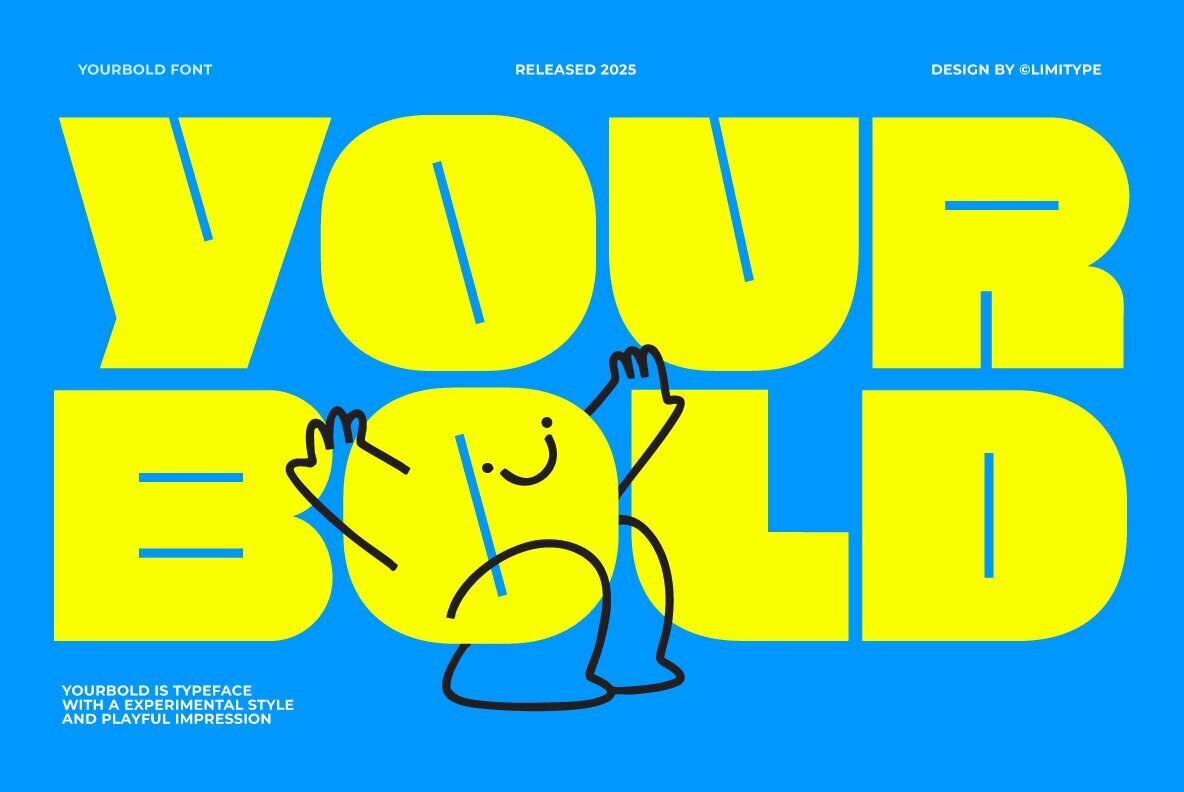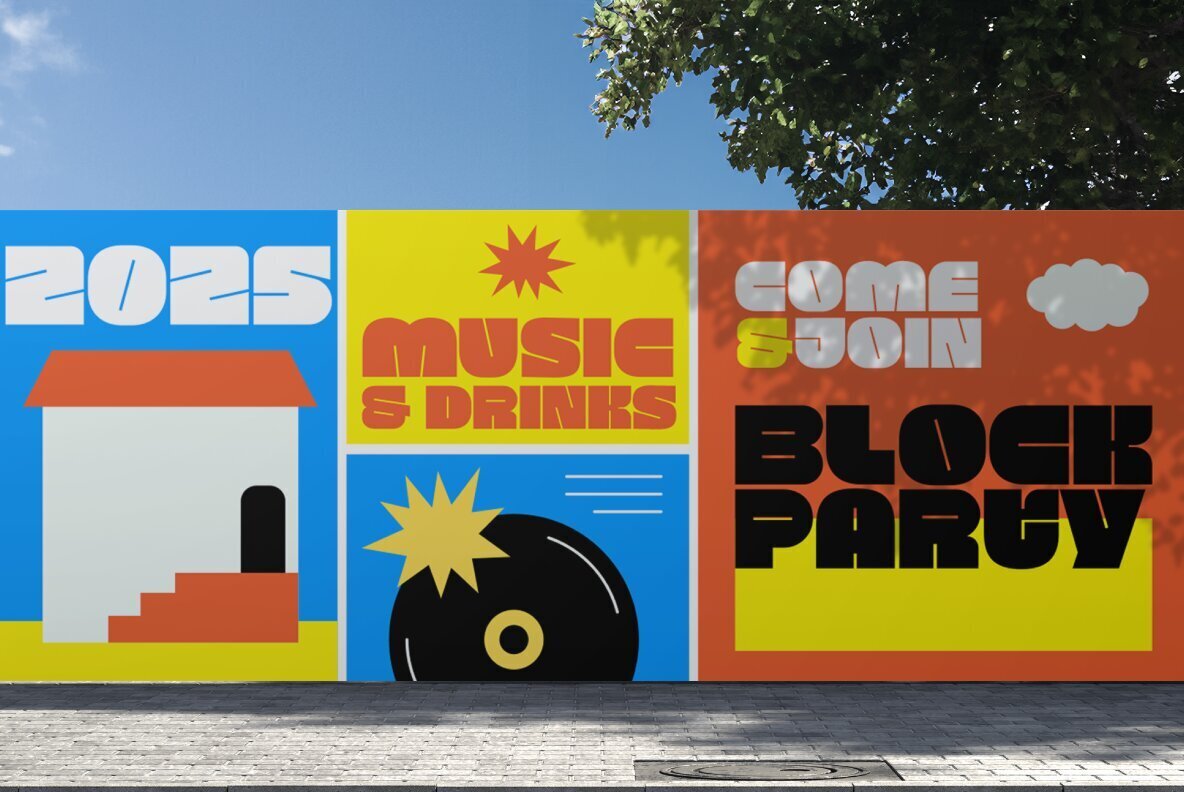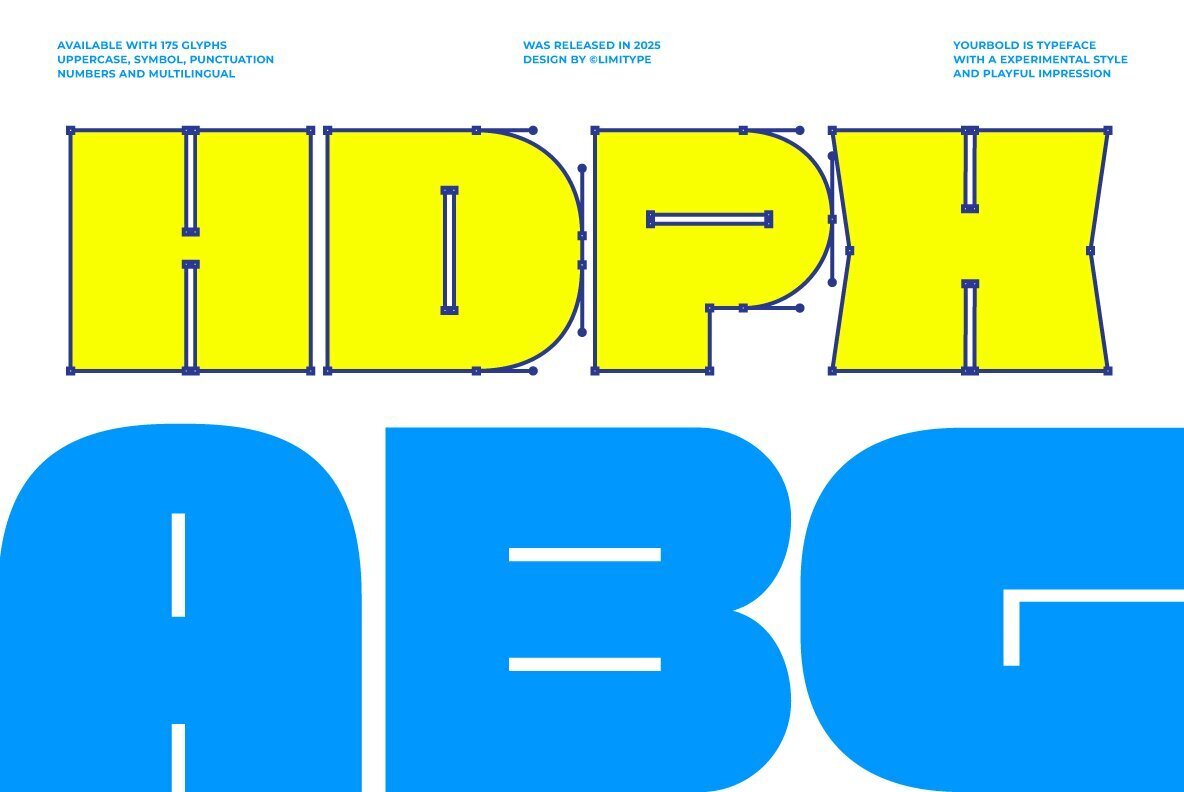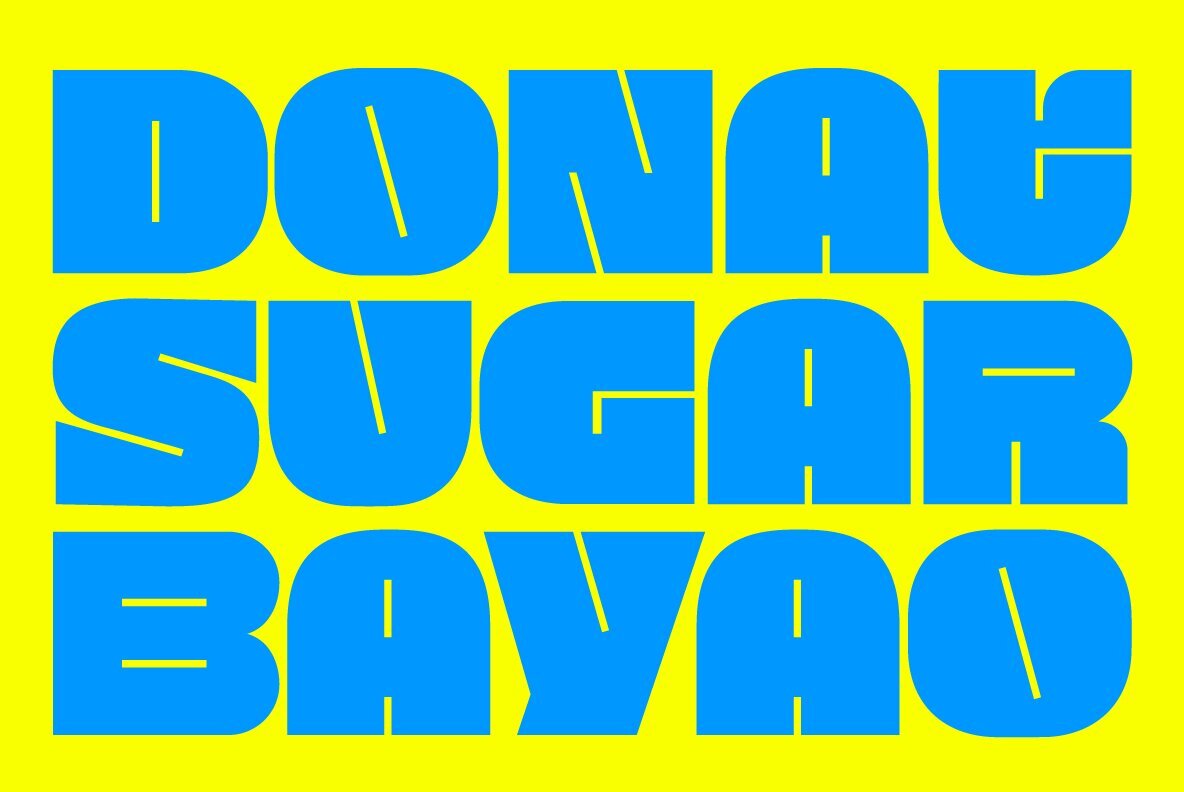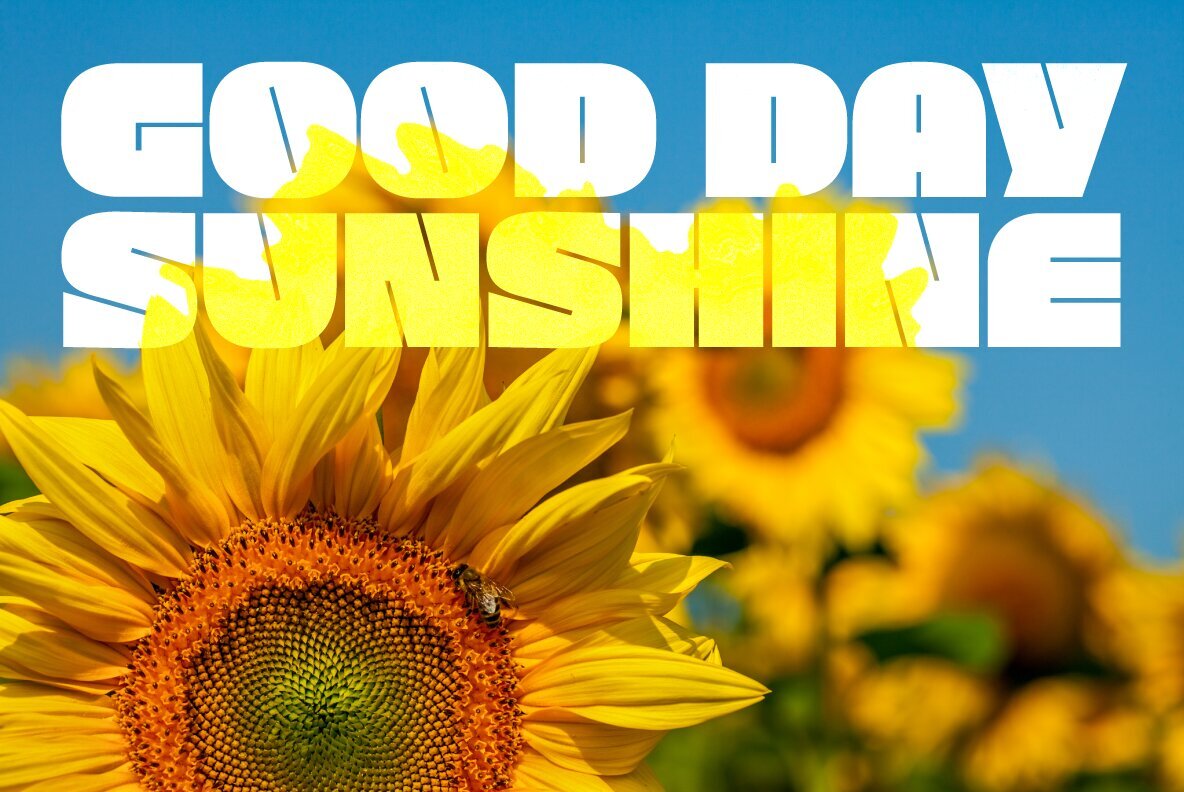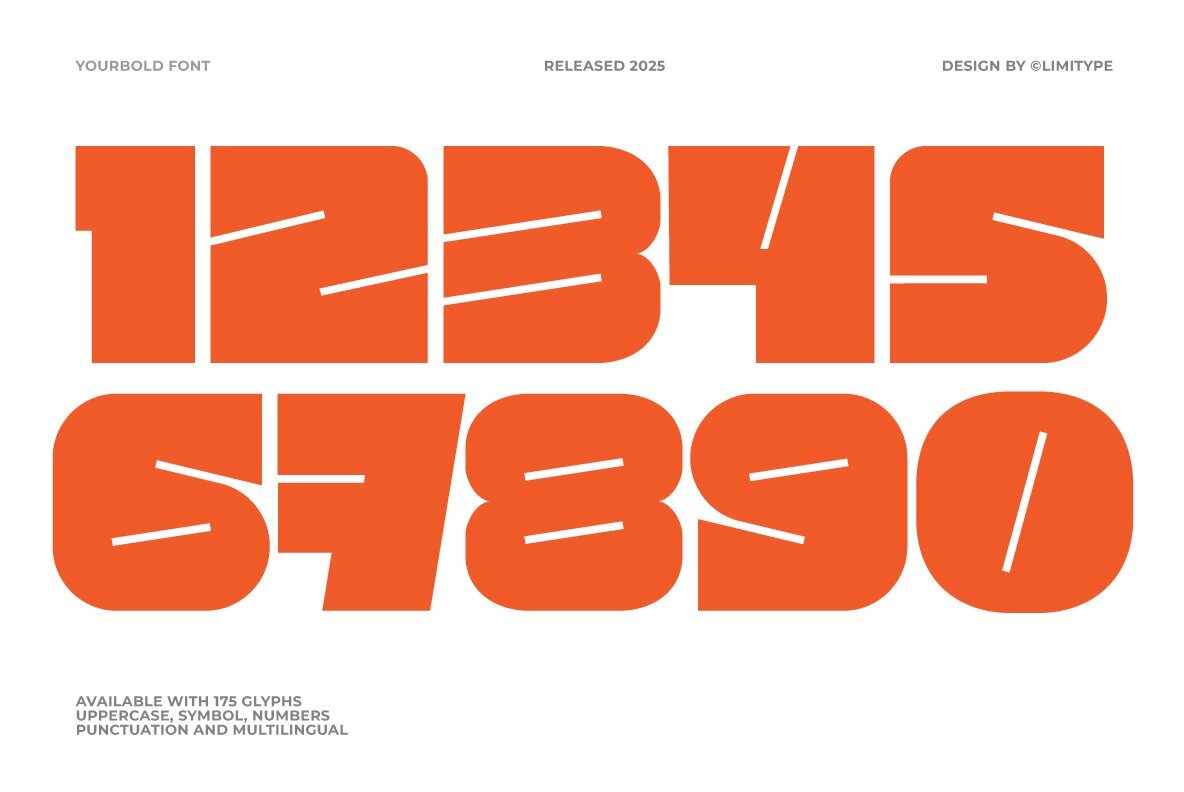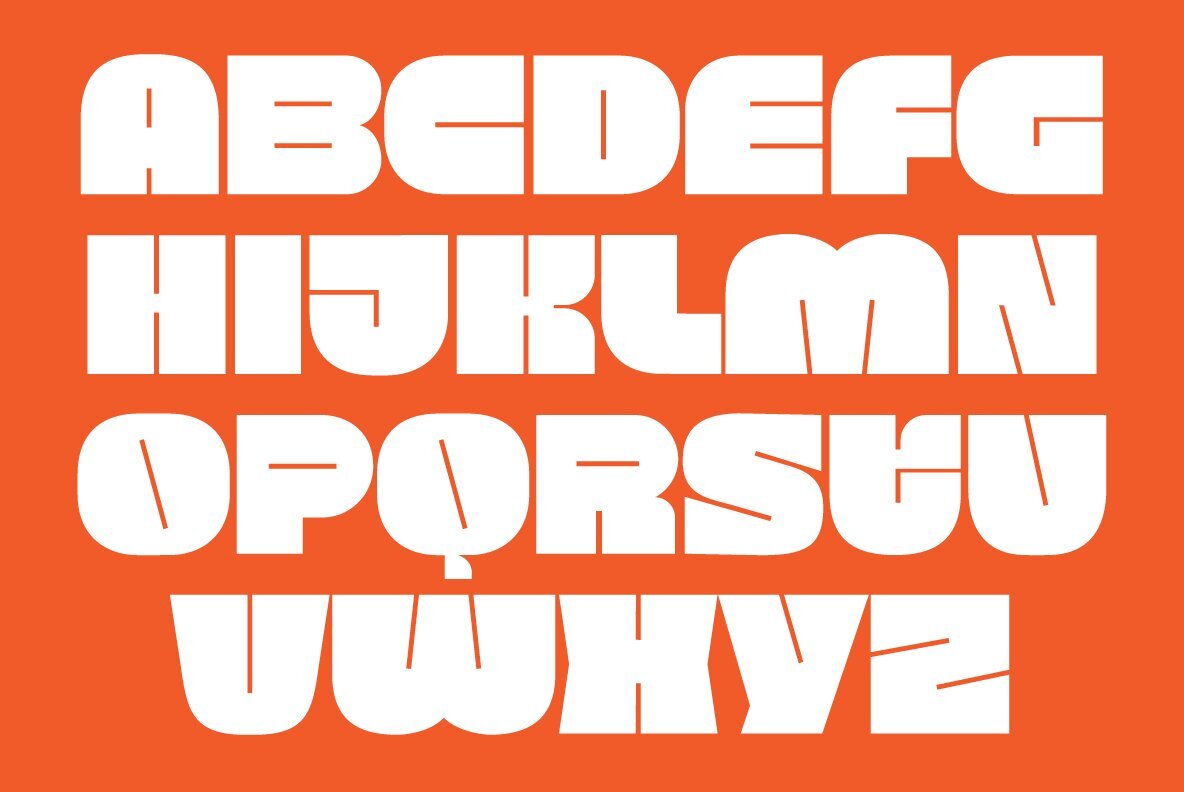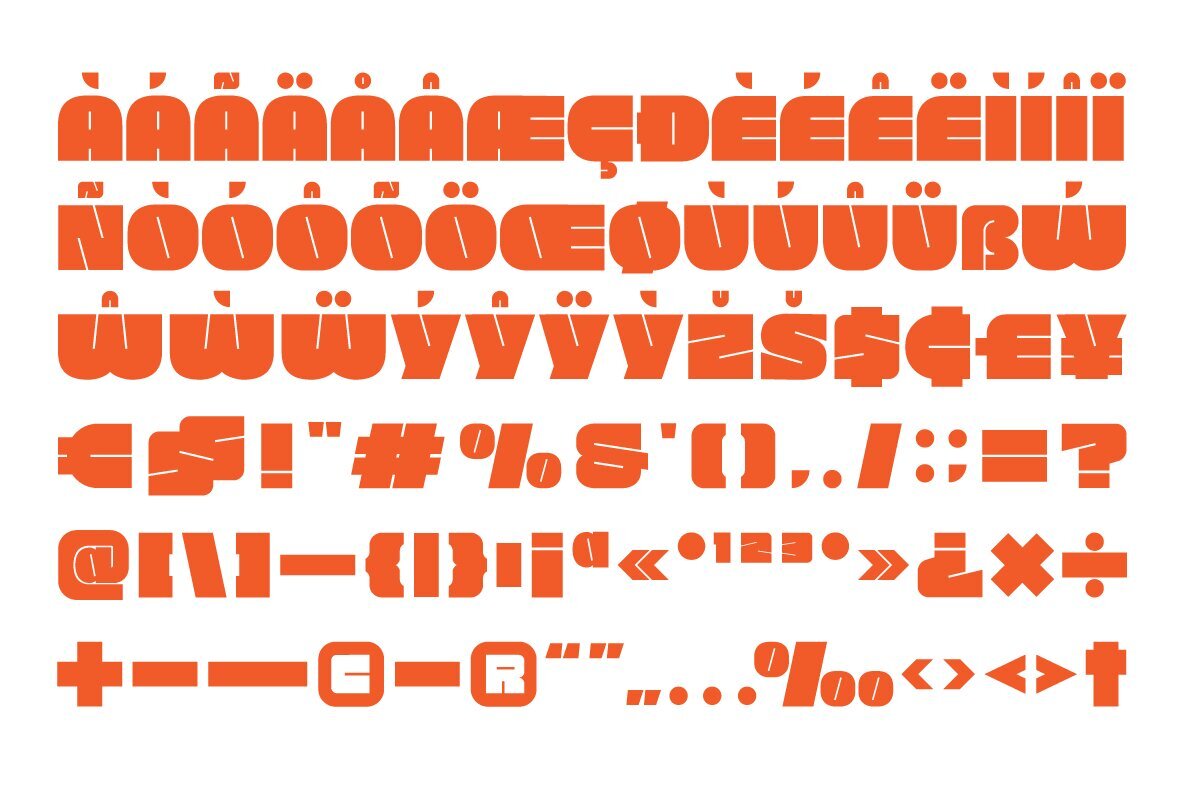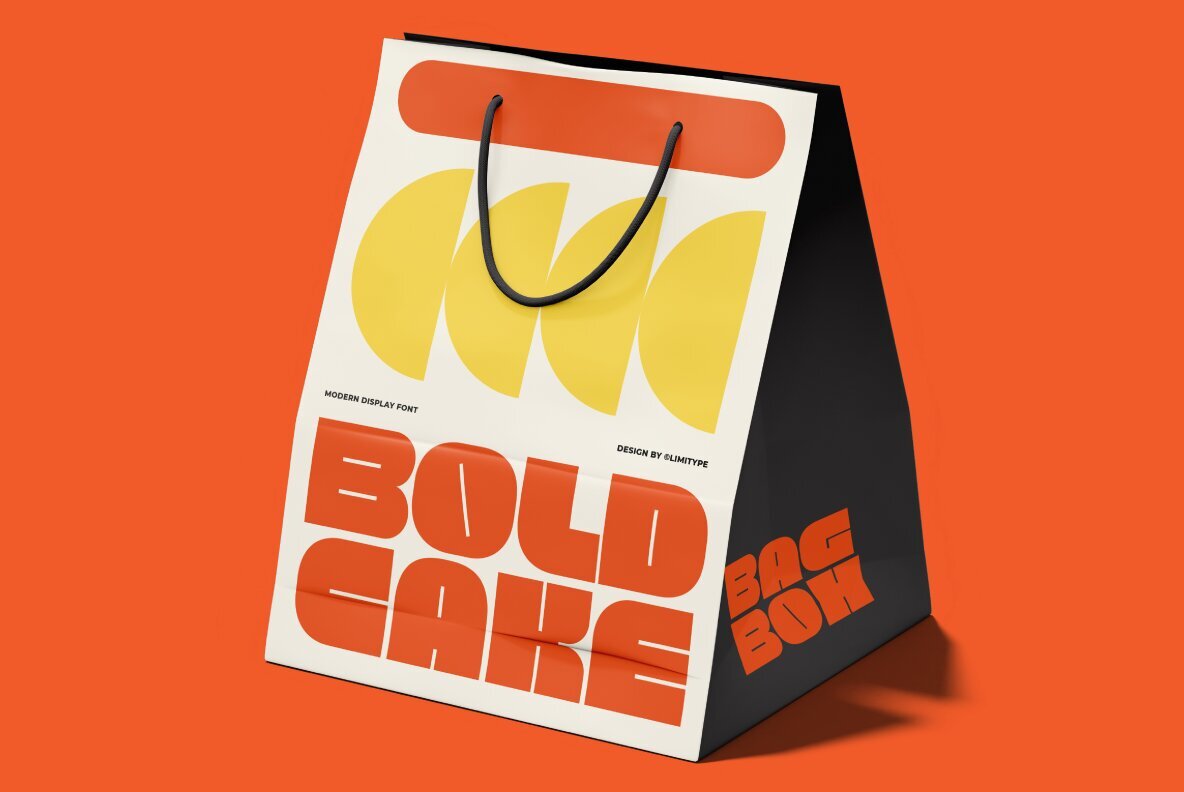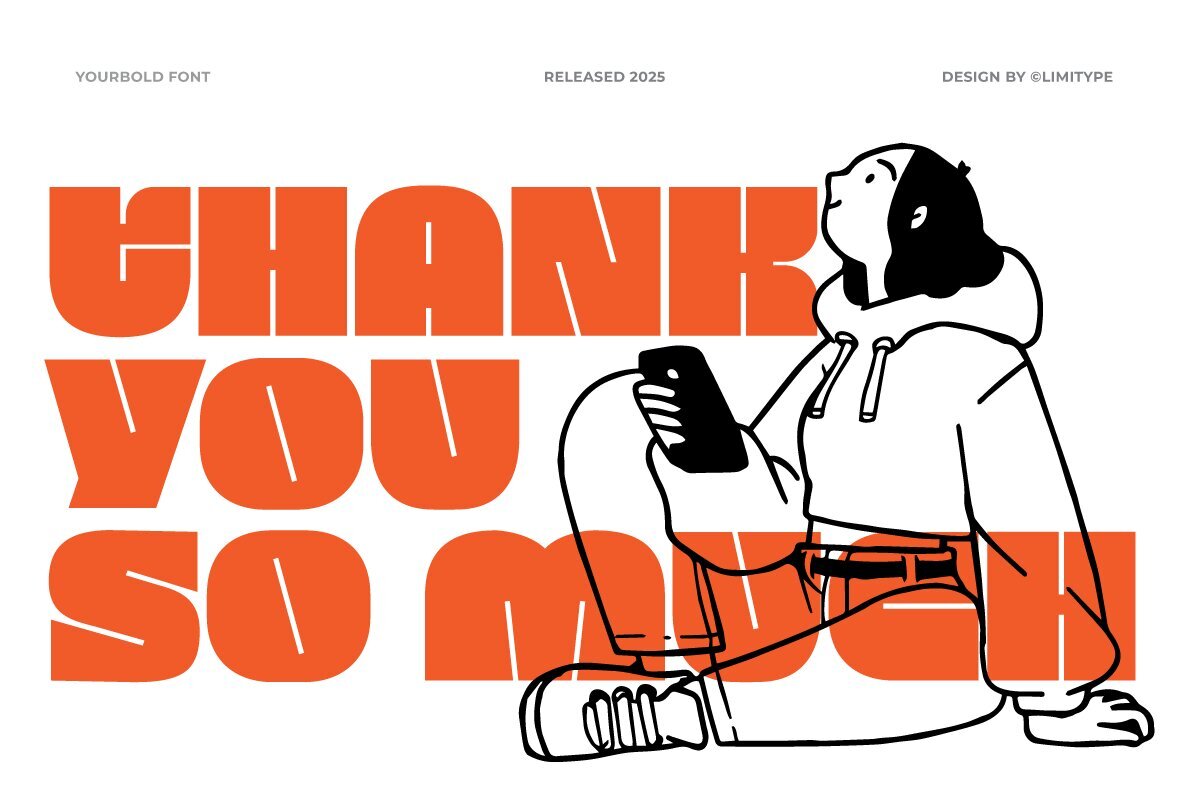
Yourbold Font
Yourbold Display
Yourbold brings a distinct presence to any project, combining bold, playful elements with unmistakable strength. Every letter delivers a visual weight that commands attention, making it well-suited for headlines, posters, and logos. When clarity and immediate visual impact matter, this font provides a compelling choice for graphic designers seeking effective communication through type.Yourbold: Confident Typeface for Impactful Design